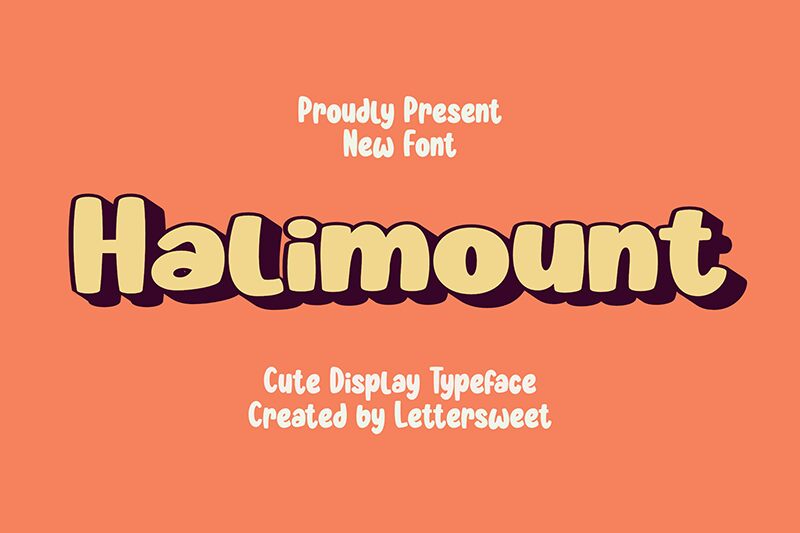
Halimount Regular
Halimount font by Lettersweet Studio is a casual display font with a playful cartoony style. Its bubble-like appearance immediately reminds of comics and the carefree fun that comes with it. Playfully retro, organic, and approachable; this bold condensed font is ideal for catching attention either through headlines or short texts alongside graphics.
Use this free cartoonish display font for book covers, game UI design, school posters pick-me-ups, comic book personal projects, packaging designs for children’s products or candy products in general. Comic strips online or printed would also look beautiful in Halimount. Other ideas might include tote bag prints as well as t-shirt prints particularly for kids’ sizes.